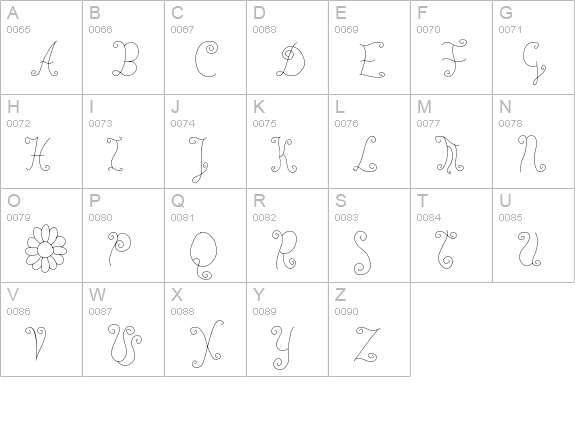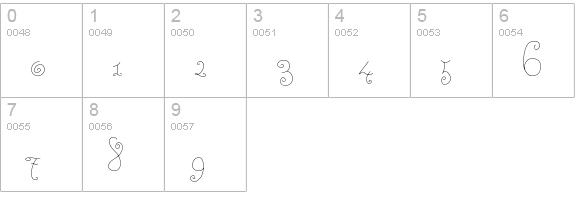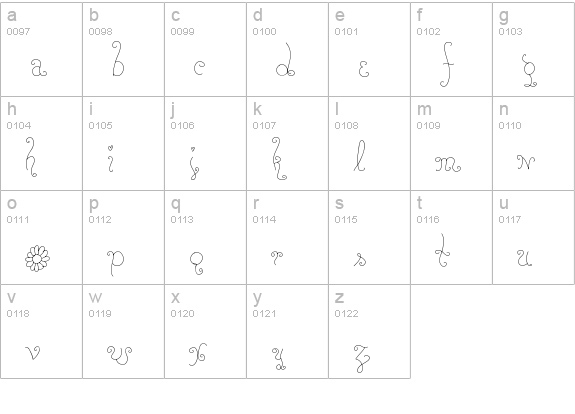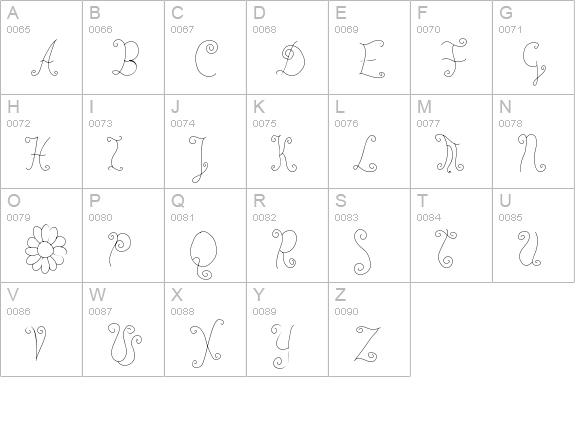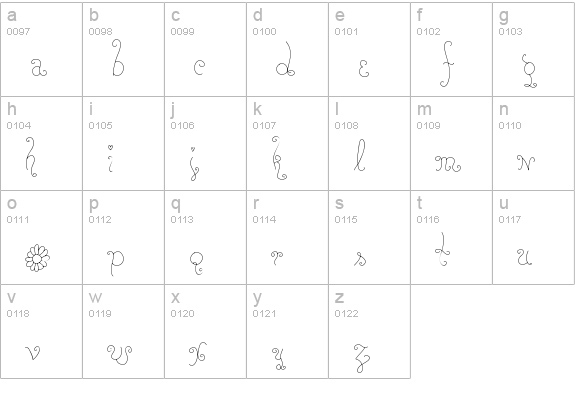
RoseWater Font Details
Introducing RoseWater font - a stylish and elegant typeface that exudes sophistication and charm. With its delicate curves and flowing script, RoseWater is perfect for adding a touch of romance to any design project. Whether you're creating wedding invitations, greeting cards, or branding materials, this font will surely make your text stand out. The best part? RoseWater font is completely free to download at FontsMarket.com. So go ahead and elevate your designs with this beautiful and versatile typeface. Let RoseWater font bring a touch of timeless elegance to your next project.